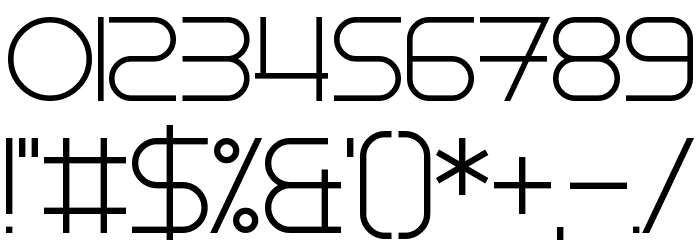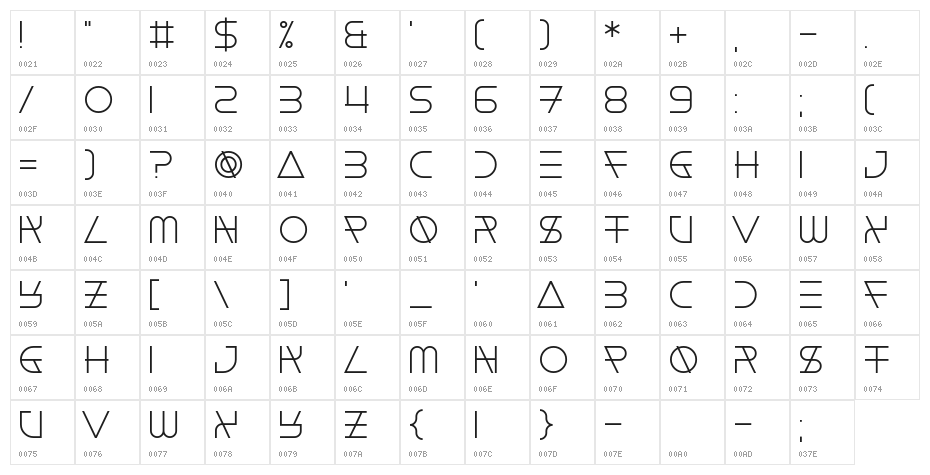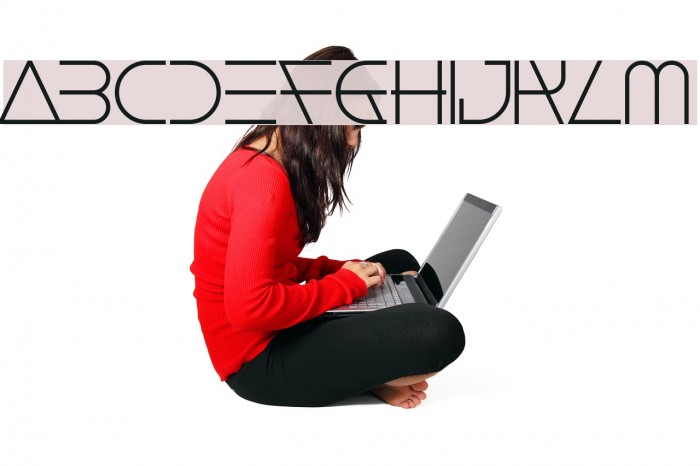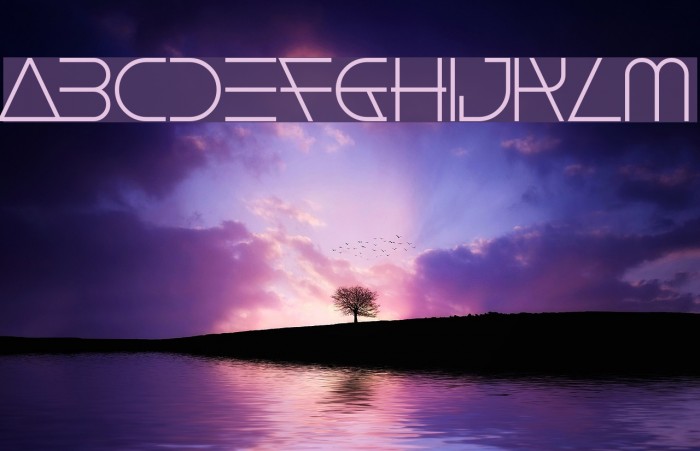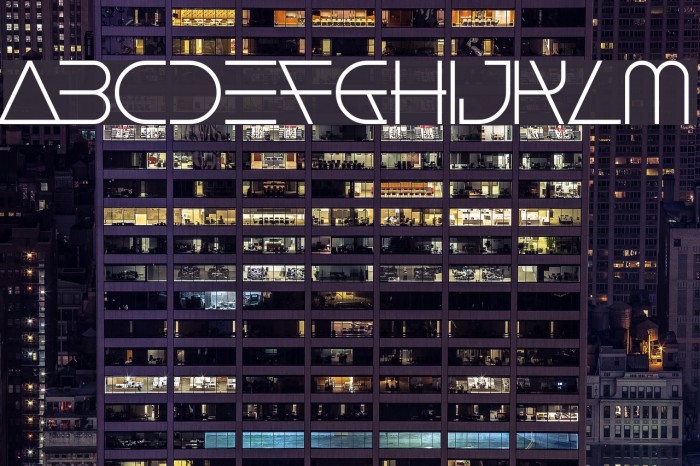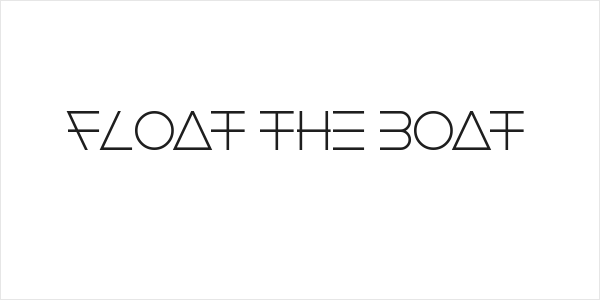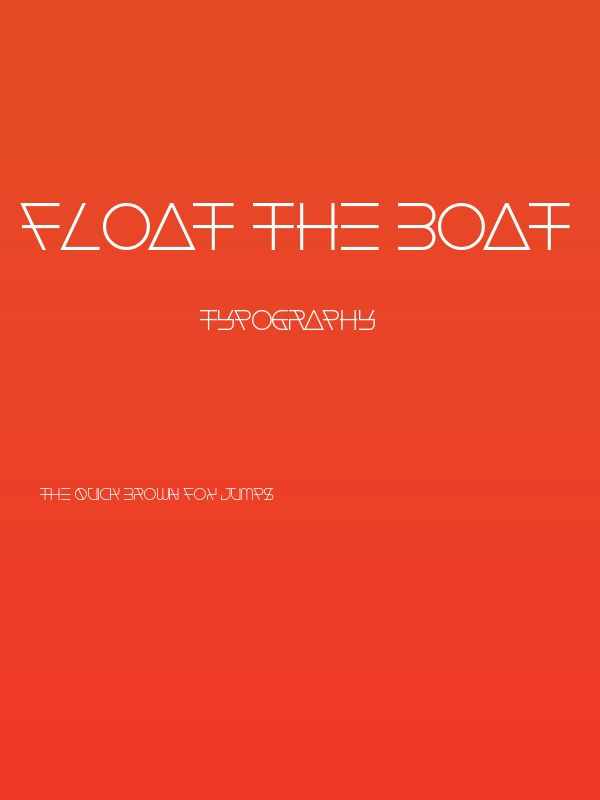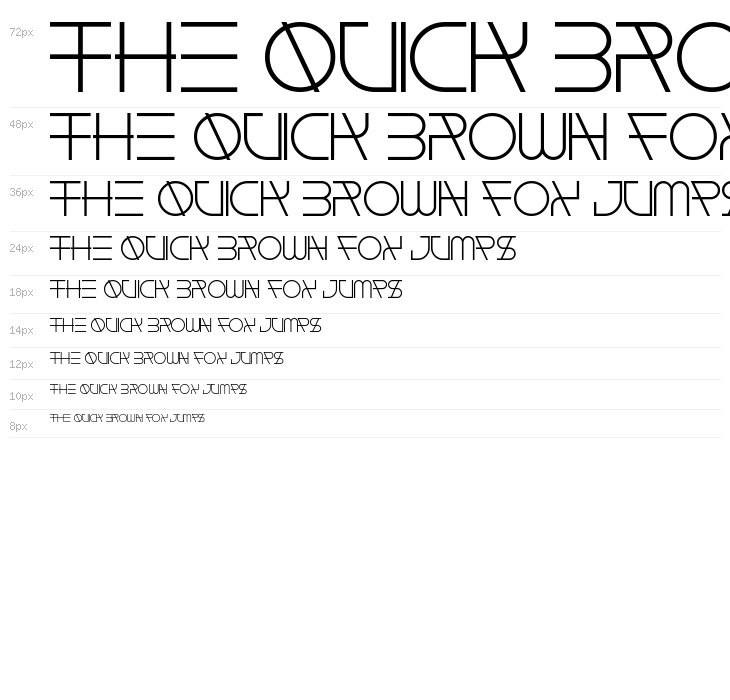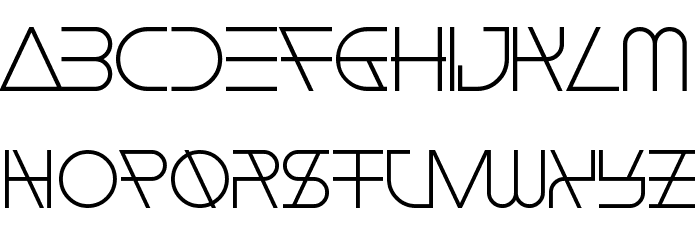
Float The Boat Font
Float The Boat Description
This font features a modern and geometric design, characterized by its clean lines and distinct angular shapes. The uppercase and lowercase letters maintain a consistent style, with a futuristic and minimalist aesthetic. The use of straight lines and sharp angles gives it a unique, almost mechanical appearance. The numbers and special characters follow the same design principles, ensuring uniformity across all glyphs. This font's design is both eye-catching and versatile, suitable for a variety of creative applications.
| Use Case | Logos, Headlines, Digital interfaces |
| Proposed Projects | Ideal for branding, logo design, futuristic themes, and digital interfaces. |